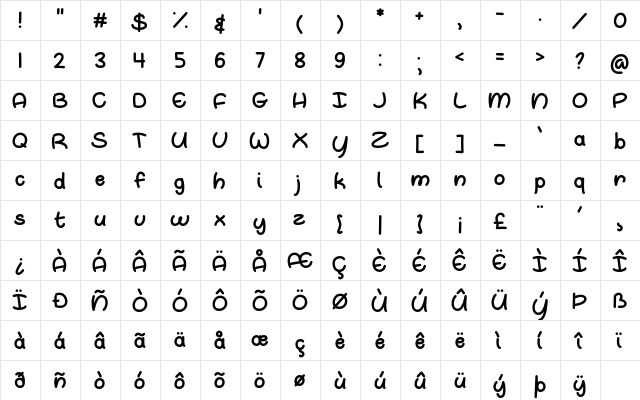
Oh Whale Regular
Design Context for Oh Whale Typeface
Oh Whale is a composed and adaptable typeface that performs quietly and consistently across a wide range of design contexts.